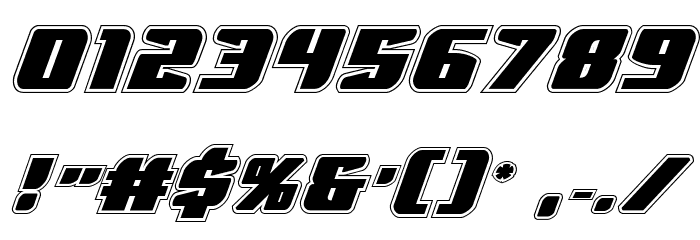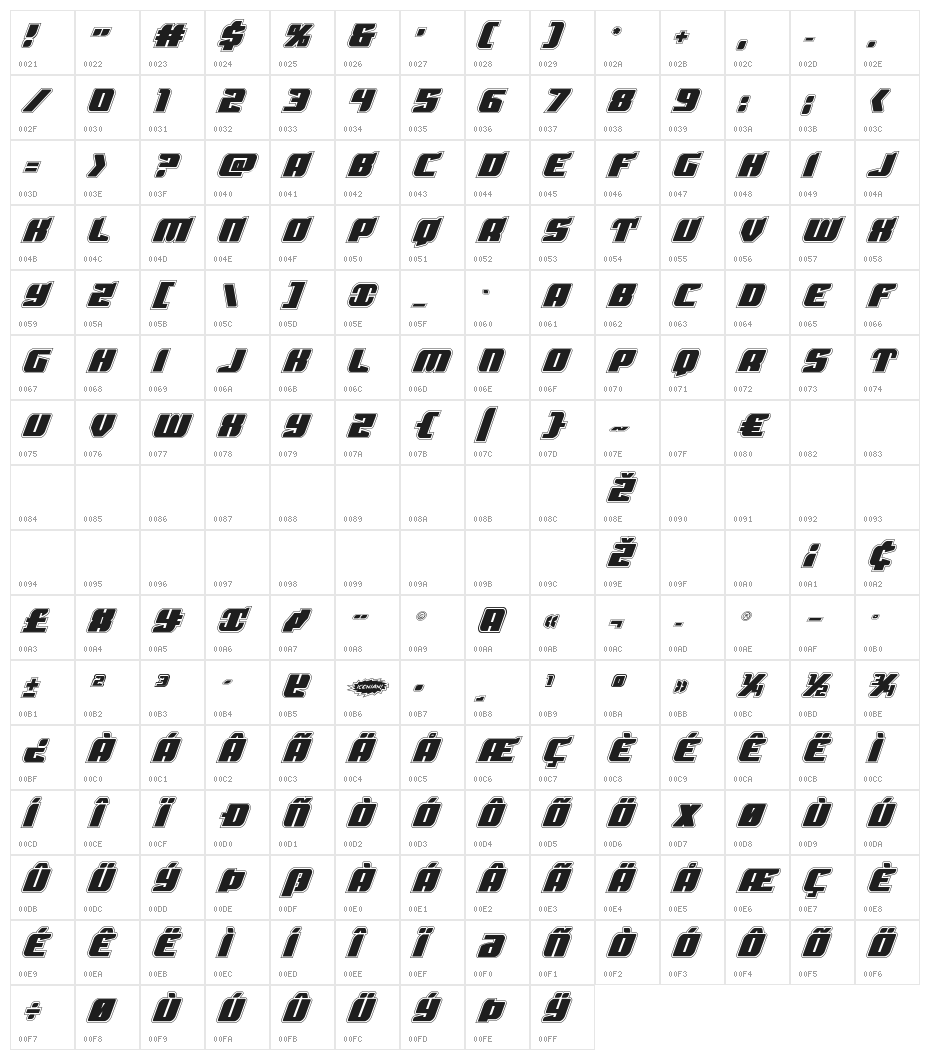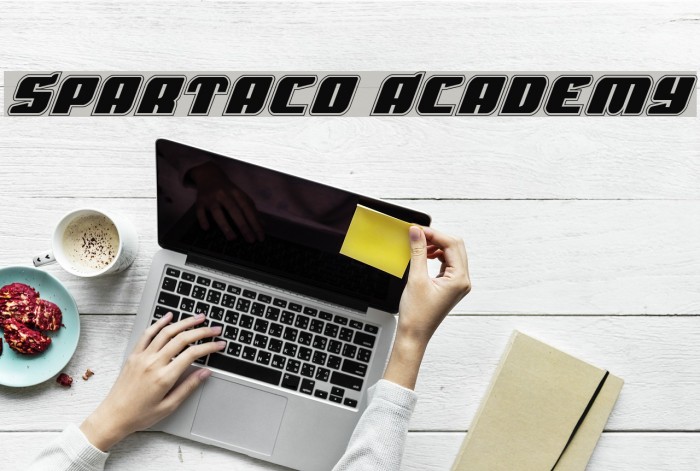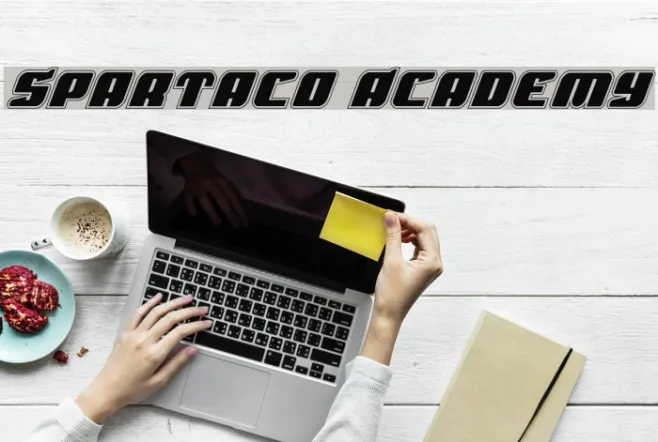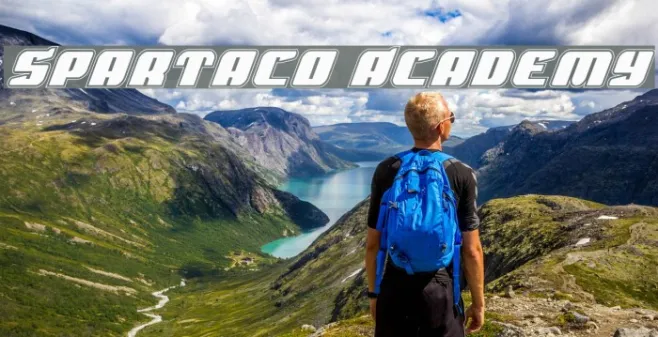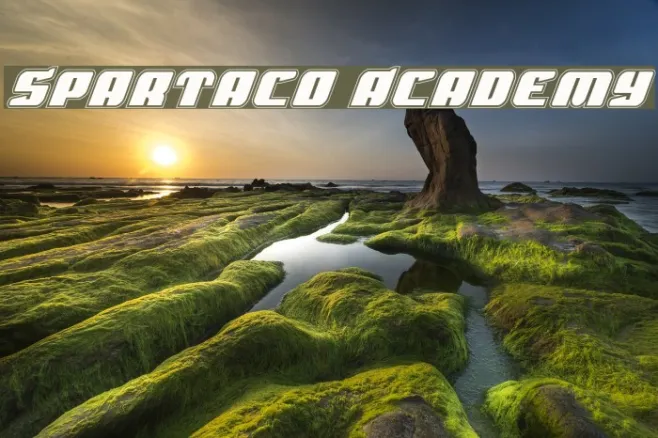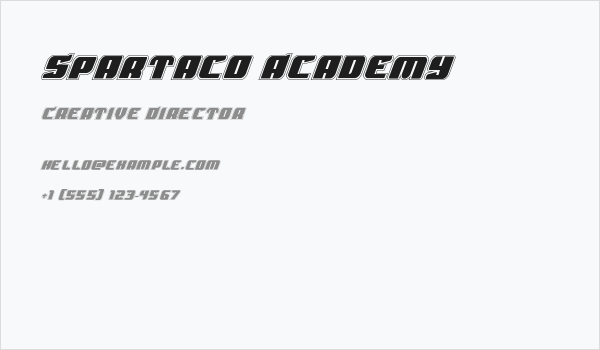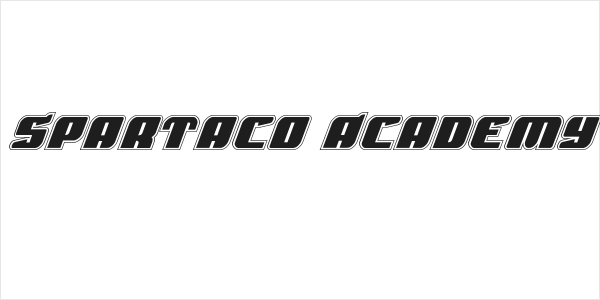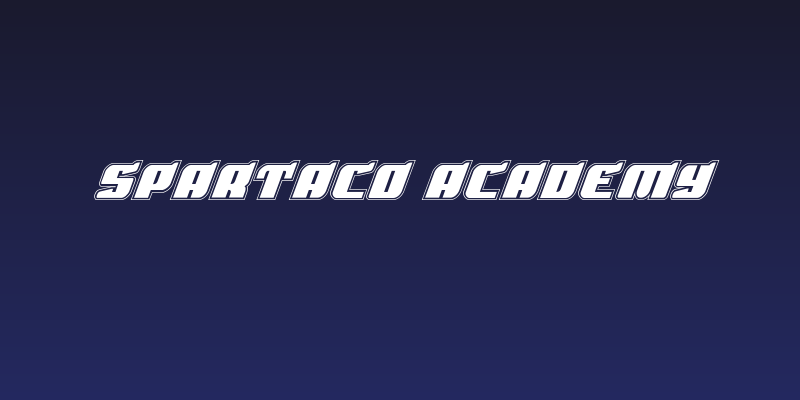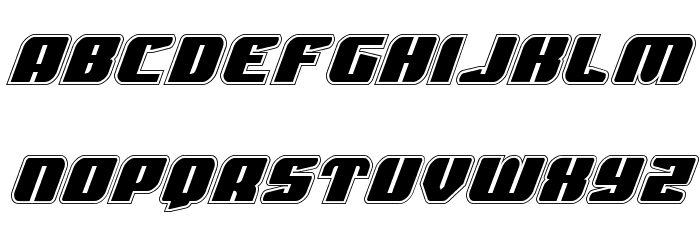
Spartaco Academy Font
Spartaco Academy Description
This font features a bold, dynamic style with a strong presence. The characters are outlined, giving them a three-dimensional effect that enhances their visual impact. The uppercase and lowercase letters maintain a consistent design, with angular edges and a slightly italicized slant, adding a sense of motion and energy. The numerals and special characters follow the same design principles, ensuring uniformity across all elements. This font's unique style makes it stand out, making it ideal for projects that require a bold statement.
| Proposed Projects | Ideal for sports branding, event posters, and dynamic logo designs. |